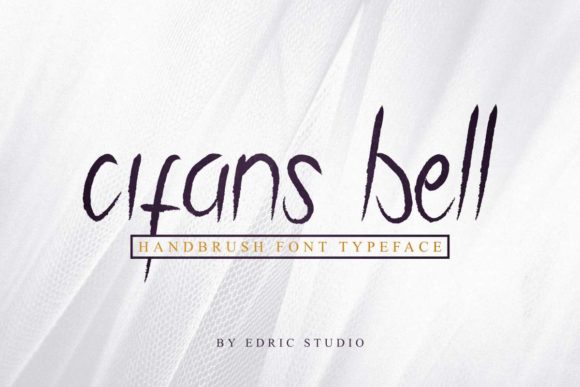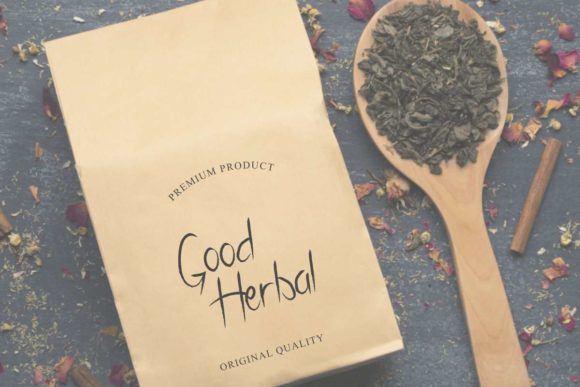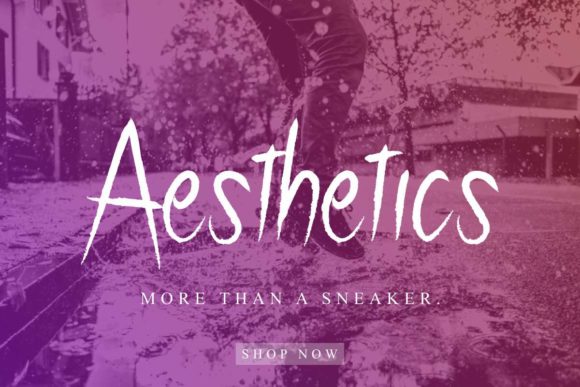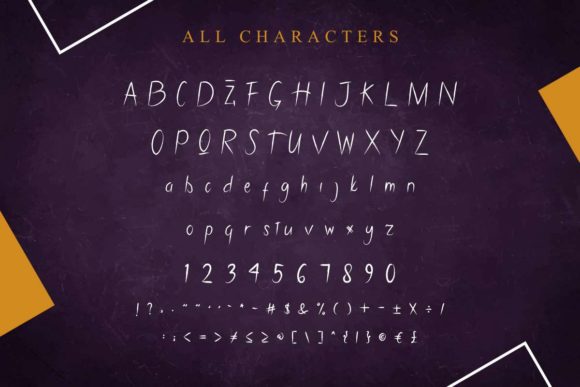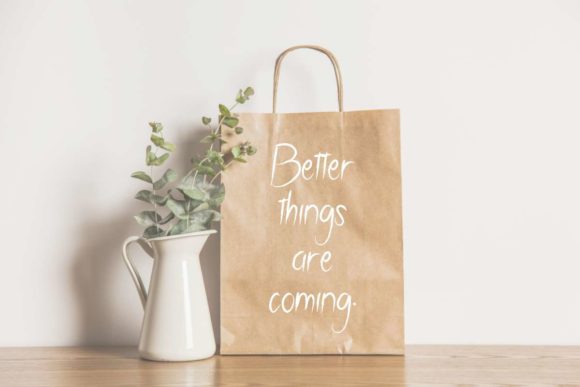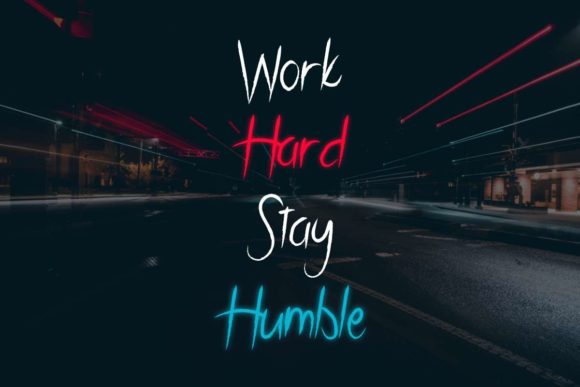
Cifans Bell Font: Elevate Your DIY Projects with Elegant Handwritten Style
In the world of typography, few fonts manage to capture the essence of elegance and simplicity as effectively as Cifans Bell. This exceptional font is the result of a beautiful marriage between a brush pen and a keen sense of design, yielding a look that is both endearing and authentic. For designers, crafters, and DIY enthusiasts looking to infuse their projects with a personal touch, Cifans Bell offers a unique and versatile solution.
The Making of Cifans Bell
Cifans Bell’s distinctive charm stems from its creation process. Crafted using a brush pen, this font embodies the fluidity and expressiveness of handwritten typography. Each letter is a testament to the art of handwriting, bringing a sense of warmth and personality to any project it’s applied to. The use of a brush pen in its creation gives Cifans Bell a unique texture and variability, setting it apart from more uniform, digital fonts.
Characteristics of Cifans Bell
• Handwritten Elegance: Cifans Bell simplifies elegance into a truly outstanding font. Its handwritten nature lends a personal and sophisticated touch to any text.
• Authentic Look: The brush pen technique used in creating Cifans Bell gives it an incredibly authentic look, reminiscent of traditional calligraphy and hand-lettering.
• Versatility: This font is not just limited to digital platforms; it’s also perfect for print, making it ideal for a wide range of DIY projects, from crafting and scrapbooking to branding and advertising.
• Emotional Connection: The endearing quality of Cifans Bell helps create an emotional connection with the reader, making it perfect for projects where a personal touch is desired.
Applications of Cifans Bell
Cifans Bell’s versatility is one of its most compelling features. Here are some ways designers and crafters can utilize this beautiful font:
• DIY Projects: Bring your crafting, scrapbooking, or any other DIY project to life with the warm, inviting style of Cifans Bell. Whether it’s titles, captions, or full texts, this font adds a personal and elegant touch.
• Branding and Marketing: For businesses looking to stand out, Cifans Bell offers a unique typography solution that can add a personal and approachable feel to brand communications.
• Digital Content: Enhance your blog posts, social media graphics, and digital newsletters with the elegant and readable style of Cifans Bell.
• Stationery and Invitations: Create beautiful, handmade-looking stationery, invitations, and greeting cards that are sure to leave a lasting impression.
Tips for Using Cifans Bell Effectively
To make the most of Cifans Bell, consider the following tips:
• Pair with Solids: Pair Cifans Bell with solid colors or simple patterns to let the font be the focal point.
• Experiment with Sizes: Play with different font sizes to create visual hierarchy and emphasize key messages.
• Mix with Other Fonts: Combine Cifans Bell with complementary fonts for added depth and interest, but ensure readability.
• Consider the Context: Tailor your use of Cifans Bell to fit the project’s context, adjusting style and size as needed.
Cifans Bell is more than just a font; it’s a design element that can transform your DIY projects, digital content, and branding efforts. Its unique blend of elegance, authenticity, and versatility makes it an invaluable tool for designers and crafters looking to add a personal touch to their work. By incorporating Cifans Bell into your projects, you’re not just choosing a font; you’re embracing a style that speaks to warmth, creativity, and individuality.
So, why settle for ordinary when you can make your projects truly outstanding with Cifans Bell? Dive into the world of elegant handwritten typography and discover the difference it can make in your designs.